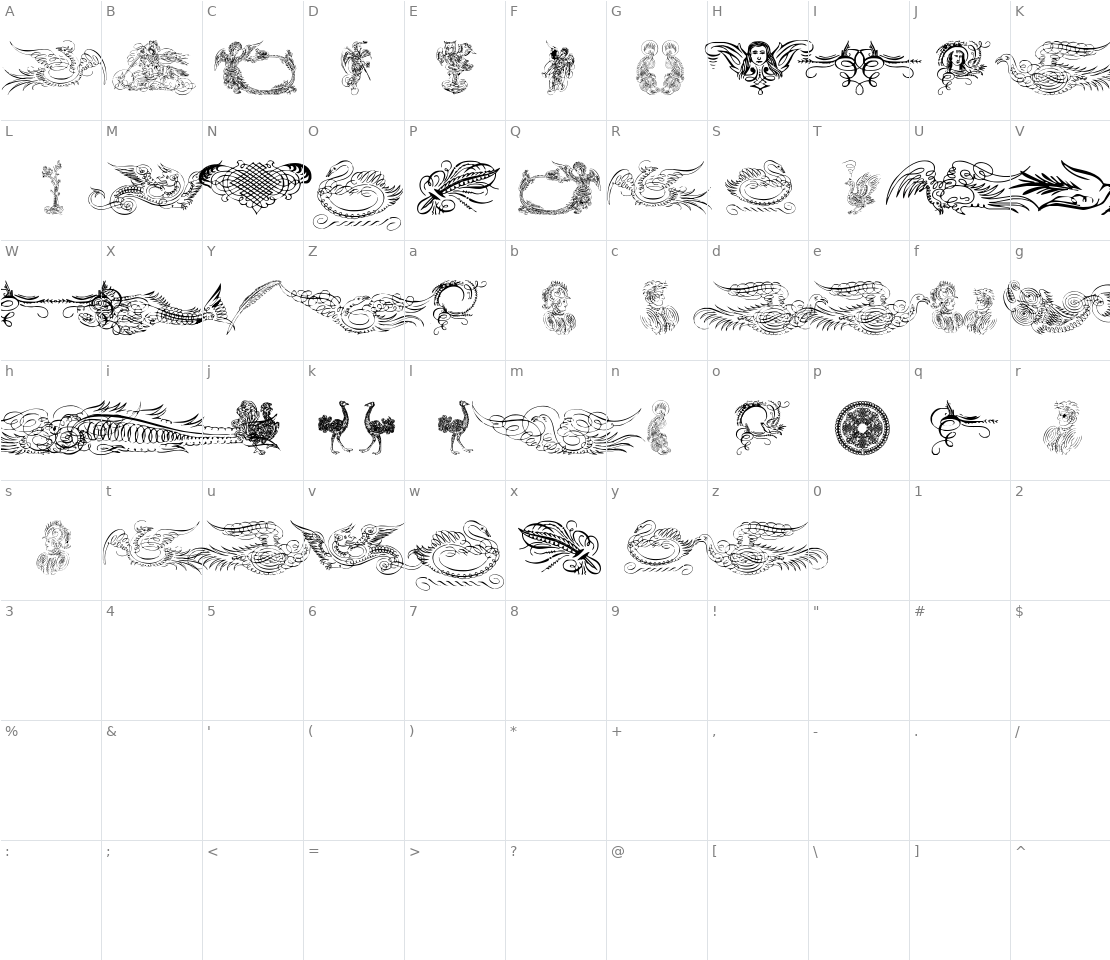
Aprendiz Caligrafico
Aprendiz Caligrafico is a set of calligraphic ornaments and flourishes from Intellecta Design, offering decorative dividers, borders, and swirling embellishments rooted in classical penmanship traditions. The pieces have a vintage, hand-drawn quality that pairs naturally with serif typefaces in invitations, certificates, book design, and editorial layouts where you need elegant visual punctuation between sections of text.